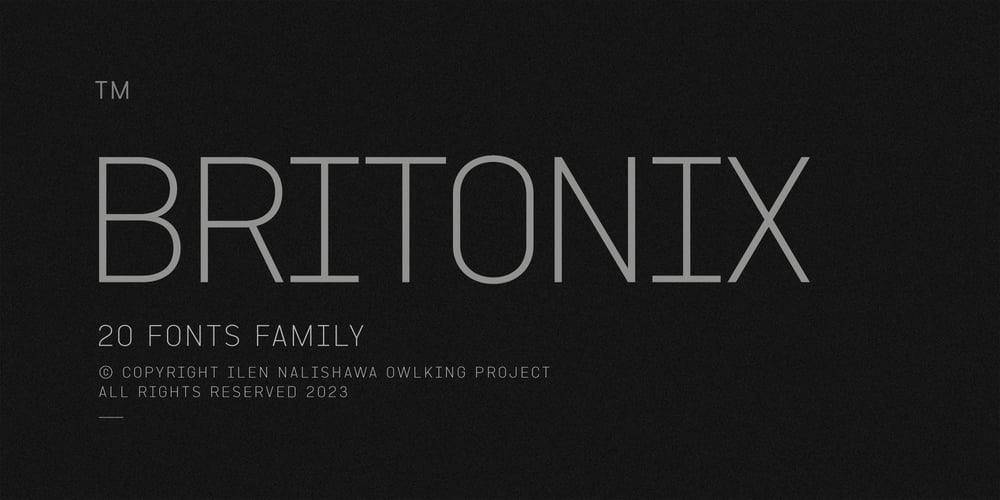
Britonix Font Family was designed by Darhilen and published by Owl king project. Britonix contains 20 styles and family package options. Inspired by monospaced letters, Britonix is designed with normal spacing but seems mono. Uppercase Britonix can be used for headlines or displays giving it a minimalist, professional yet modern look. Britonix also carries 20 weights including italic style, minimalistic lowercase letters can also work well for long sentences or paragraphs. happy exploring with Britonix.